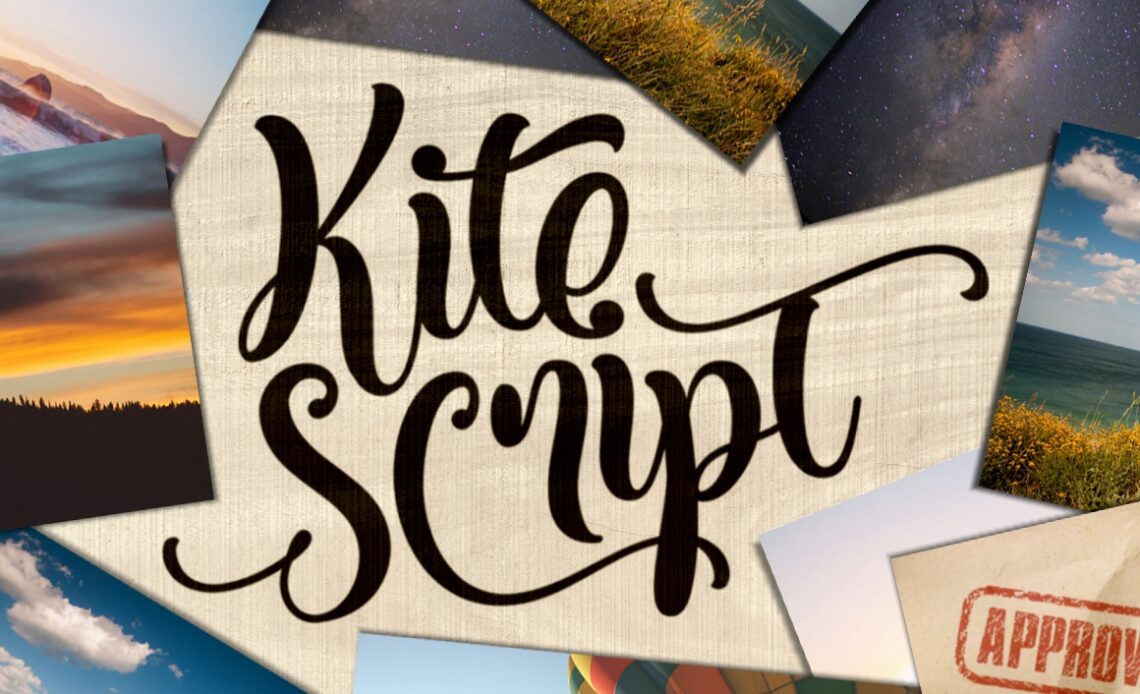
Introducing Kite Script Font: The Pinnacle of Elegance and Playfulness
Adorn your designs with an enchanting symphony of curves and strokes, courtesy of Kite Script Font. This exquisite script typeface weaves a tapestry of thick and thin lines, harmonizing with an array of heights and kerning techniques to replicate the captivating essence of handwritten artistry. Dive into a world of customization, where Kite Script Font effortlessly molds to your creative vision, bestowing an aura of sophistication upon your projects.
Kite Script Font: An Ode to Elegance and Grace
Step into a realm where fonts transcend their traditional boundaries, becoming a conduit for emotional expression and aesthetic allure. Kite Script Font stands as a testament to the power of typography, transforming your designs into captivating narratives that speak to the heart and stir the imagination. Whether you're a seasoned designer yearning for a touch of exclusivity or a creative soul seeking a font that mirrors your unique style, Kite Script Font beckons you to embark on a journey of visual enchantment.
Kite Script Font: Your Creative Playground
Unleash your artistic prowess with Kite Script Font, a versatile tool that seamlessly complements a boundless spectrum of design endeavors. From the delicate strokes of wedding invitations to the bold declarations of branding campaigns, Kite Script Font effortlessly adapts, adding a dash of sophistication to every stroke. Embrace the freedom to personalize, to let your imagination soar, and to watch as your designs flourish with Kite Script Font as your trusted companion.
Kite Script Font: A Legacy of Excellence
Stemming from the creative minds at Fontdation, Kite Script Font stands as a testament to their unwavering commitment to typographic excellence. With a keen eye for detail and an ardent dedication to crafting fonts that resonate, Fontdation has meticulously designed Kite Script Font to captivate and inspire. Experience the culmination of their expertise and artistry, and elevate your designs to unprecedented heights with Kite Script Font.